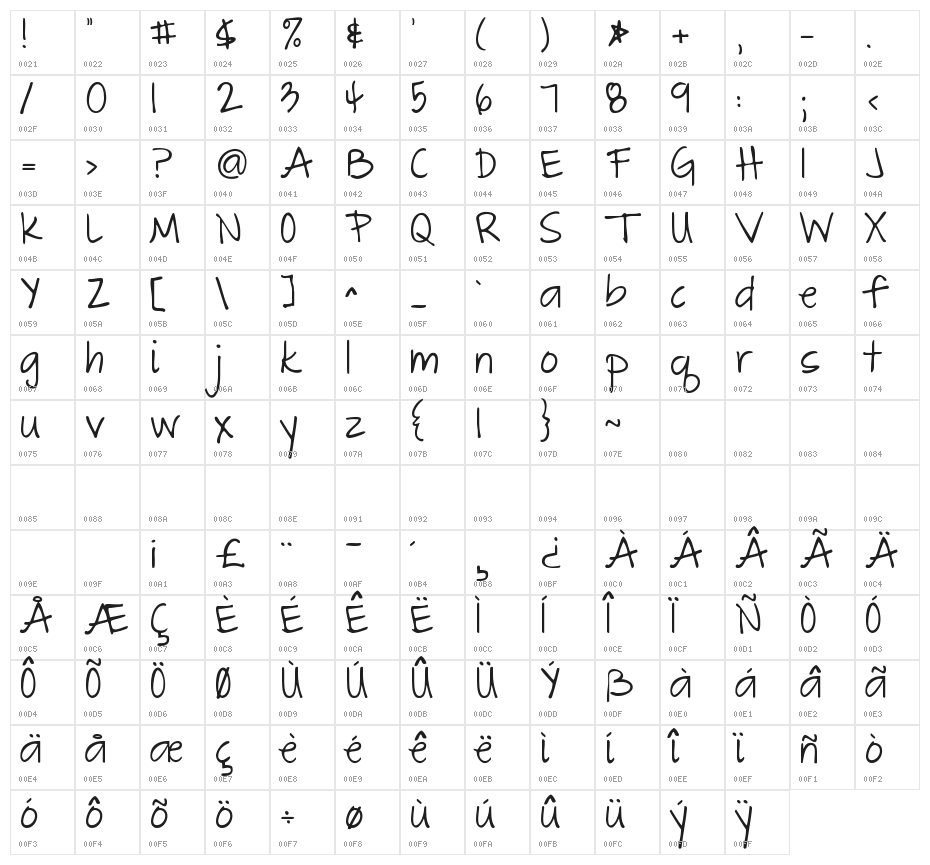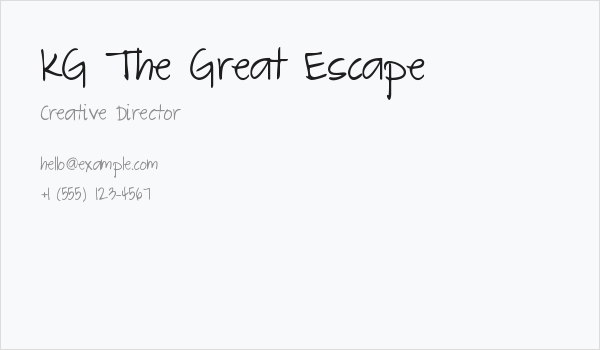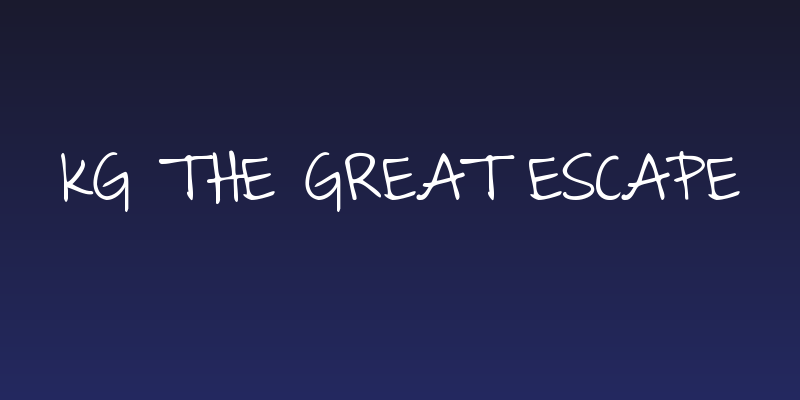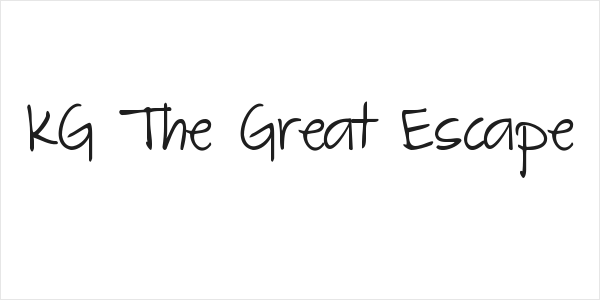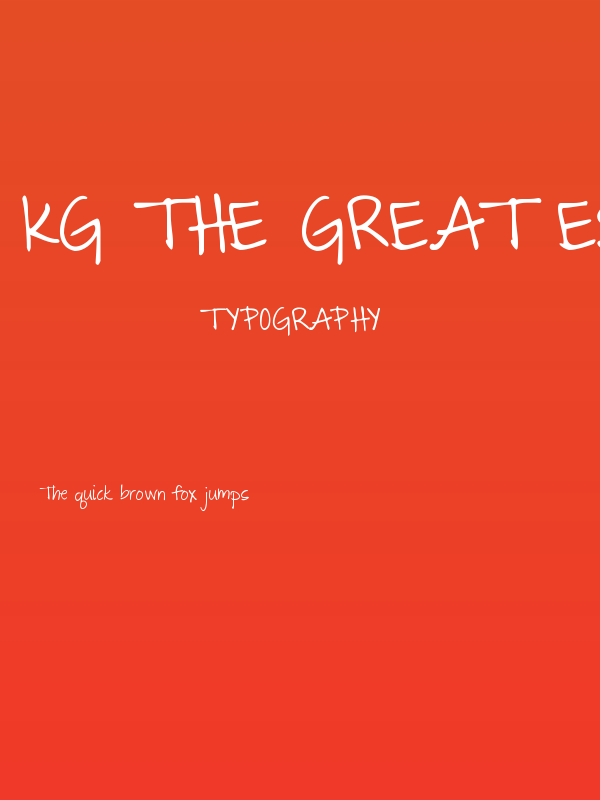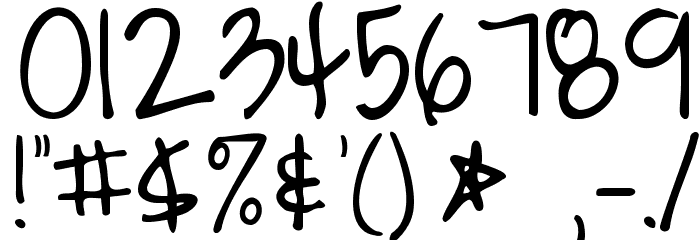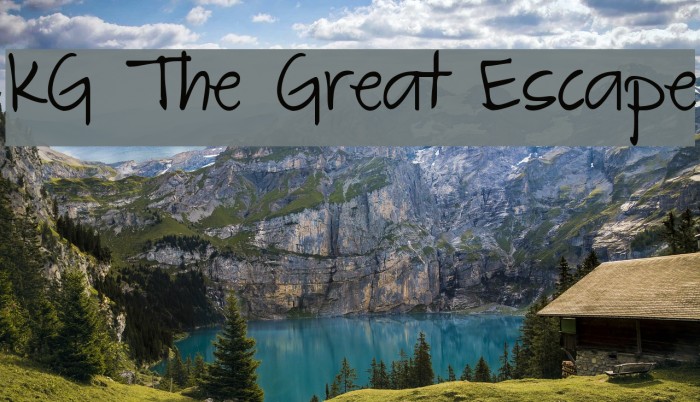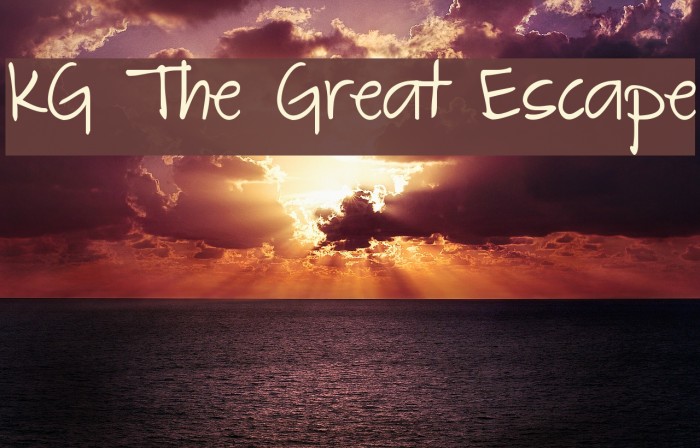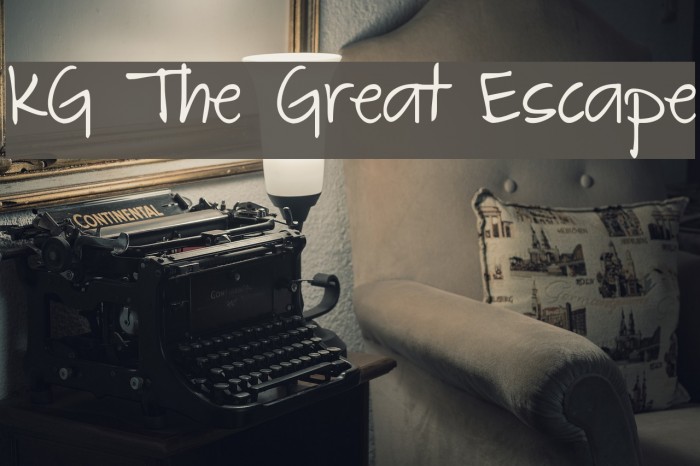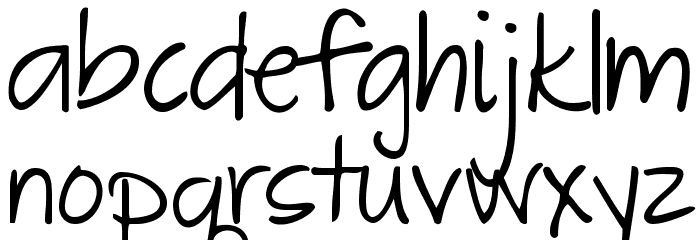
KG The Great Escape Font
KG The Great Escape Description
This font features a playful and informal handwritten style, characterized by its smooth, flowing lines and slightly irregular shapes. The uppercase and lowercase letters maintain a consistent height, creating a harmonious appearance. The numerals and special characters are crafted with the same casual flair, adding to the font's cohesive look. Its overall design exudes a sense of spontaneity and creativity, making it ideal for projects that require a personal touch. The strokes are moderately thick, providing good readability while maintaining the font's whimsical charm.
| Overall Style | Casual |
| Use Case | Headlines, Logos, Invitations |
| Proposed Projects | Ideal for greeting cards, children's books, playful branding, and casual invitations. |